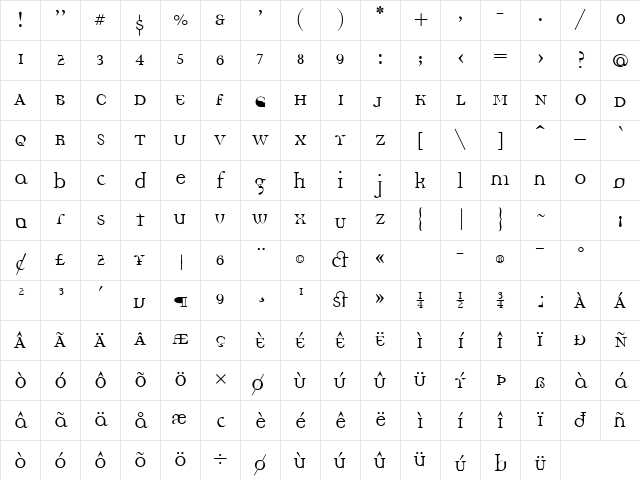
DemocraticaRegularLining Medium
Foundry: (C) Emigre Graphics; Designed by Miles Newlyn in
Design Context for DemocraticaRegularLining
DemocraticaRegularLining is a composed and adaptable typeface that performs quietly and consistently across a wide range of design contexts.
Who designed the DemocraticaRegularLining Medium font?